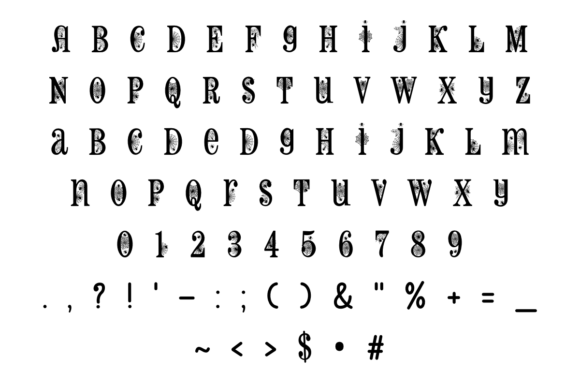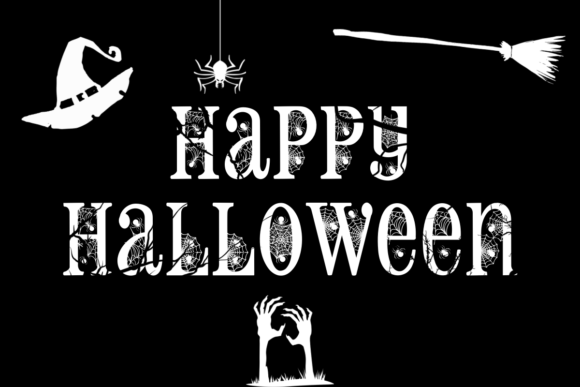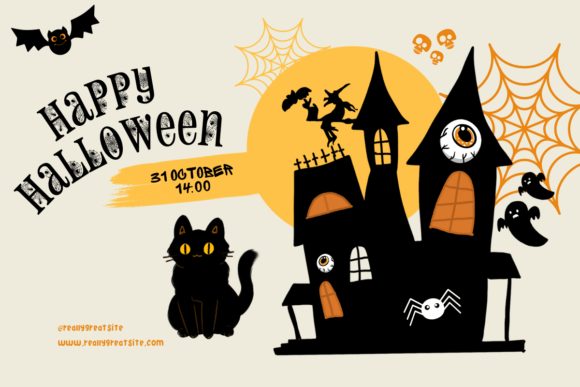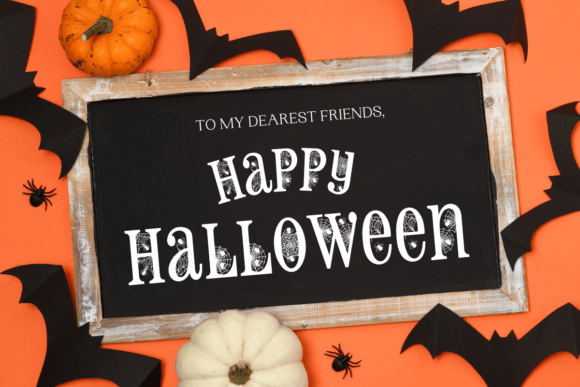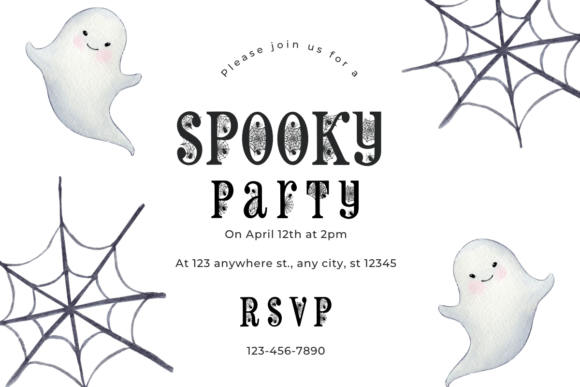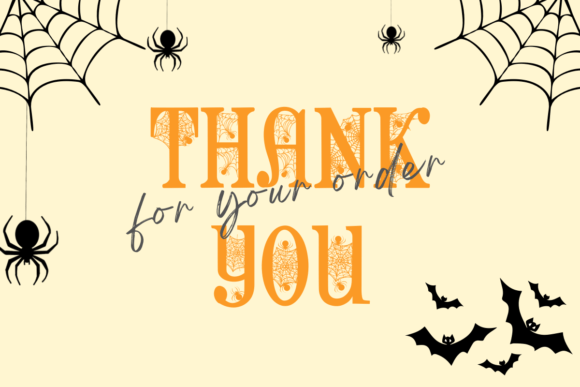
Happy Halloween Font: Add a Spooky Touch to Your Decorations
Halloween is just around the corner, and what better way to get into the spooky spirit than with a fun and creepy font? Look no further than the Happy Halloween font, a delightful and eerie typeface that’s perfect for adding a festive touch to your Halloween decorations. This charming font features spiderwebs woven into the letters, giving it a delightfully spooky feel that’s sure to send shivers down the spine.
What is Happy Halloween Font?
The Happy Halloween font is a unique and creative typeface that’s specifically designed for the spookiest time of the year. With its spiderweb-infused letters, this font is guaranteed to add a touch of whimsy and eeriness to any Halloween-themed project. Whether you’re a designer, crafter, or simply a Halloween enthusiast, this font is sure to inspire your creativity and help you create some spooktacular designs.
Features of Happy Halloween Font
- Spiderweb Details: The Happy Halloween font features intricate spiderwebs woven into the letters, giving it a delightfully creepy touch.
- Festive and Fun: Despite its spooky theme, the font has a playful and festive feel that’s perfect for Halloween decorations and designs.
- Versatile: The Happy Halloween font can be used for a wide range of projects, from Halloween party invitations to spooky crafts and decorations.
Uses for Happy Halloween Font
The Happy Halloween font is incredibly versatile, and can be used for a wide range of projects and applications. Here are some ideas to get you started:
- Halloween Party Invitations: Create spooky and festive invitations for your Halloween party using the Happy Halloween font.
- Decorative Signs: Use the font to create decorative signs and banners for your Halloween decorations.
- Crafts and DIY Projects: Add a touch of whimsy and spookiness to your Halloween crafts and DIY projects with the Happy Halloween font.
- Social Media Graphics: Create spooky and festive social media graphics using the Happy Halloween font.
Tips for Using Happy Halloween Font
Here are some tips for using the Happy Halloween font in your designs:
- Experiment with Colors: Try pairing the font with different colors and textures to create a unique and eye-catching design.
- Add Graphics and Images: Consider adding graphics and images to your design to enhance the spooky and festive theme.
- Play with Font Sizes: Experiment with different font sizes and styles to create a visually appealing design.
The Happy Halloween font is a fun and creepy typeface that’s perfect for adding a spooky touch to your Halloween decorations and designs. With its spiderweb-infused letters and festive feel, this font is sure to inspire your creativity and help you create some spooktacular designs. Whether you’re a designer, crafter, or simply a Halloween enthusiast, the Happy Halloween font is a must-have for the spookiest time of the year.